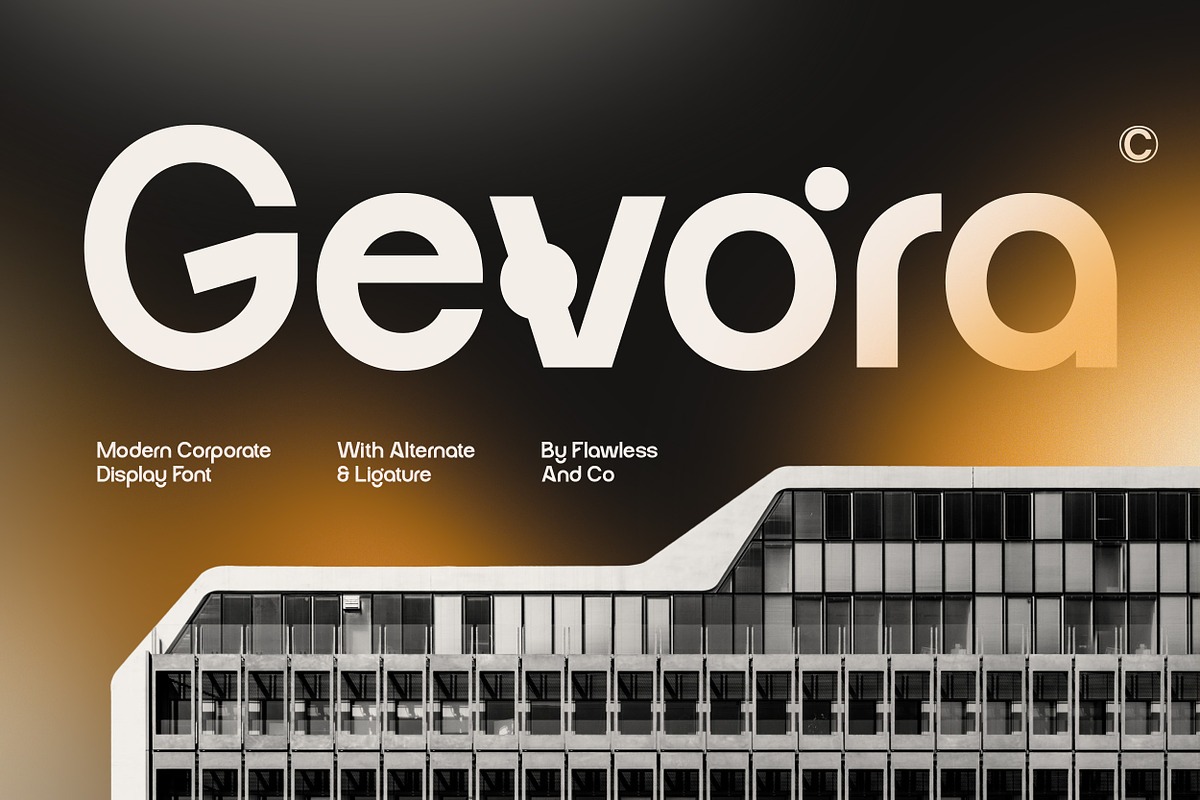
Gevora – Geometric Sans Serif Font
Gevora – Geometric Sans Serif Font is a clean and thoughtfully built typeface that works seamlessly for both professional branding and everyday creative uses. Gevora is a modern corporate display font that reflects precision, clarity, and a forward-thinking business aesthetic. Designed with clean lines and a refined structure, Gevora offers a polished and authoritative look that fits perfectly within professional and corporate environments. Its contemporary design balances simplicity with presence, allowing it to stand out in headlines while remaining elegant and controlled.